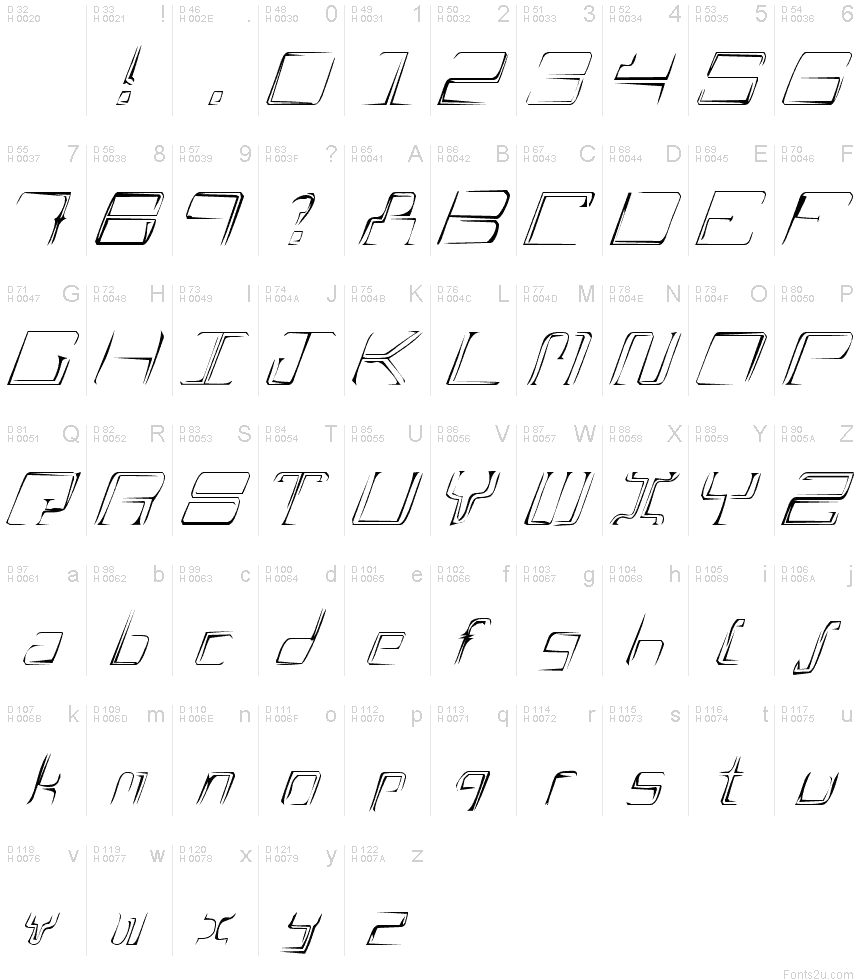
A Scratch
A Scratch font by Ben Hutchens and HBFF of America is a free eroded futuristic display typeface. Its letters look like they’ve been etched with a laser-thin, wiry strokes with sharp bends, broken contours, and a slightly glitchy attitude. The result feels fast and weightless, like neon tubing that’s been stretched to the limit, giving headlines a sleek, sci‑fi tension without feeling bulky or overdesigned.
Using A Scratch, short words and bold titles snap into focus for posters, game logos, electronic music covers, UI splash screens, tech branding, and experimental zines. This free font thrives at larger sizes where its scratched outlines and airy spacing can really breathe; pair it with a clean, unobtrusive sans serif for body text to let its futuristic energy stand out without overwhelming your layout.